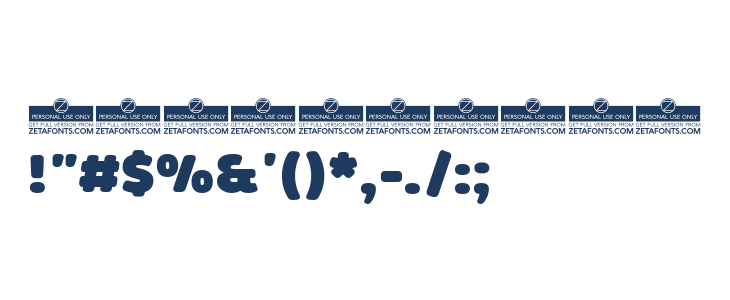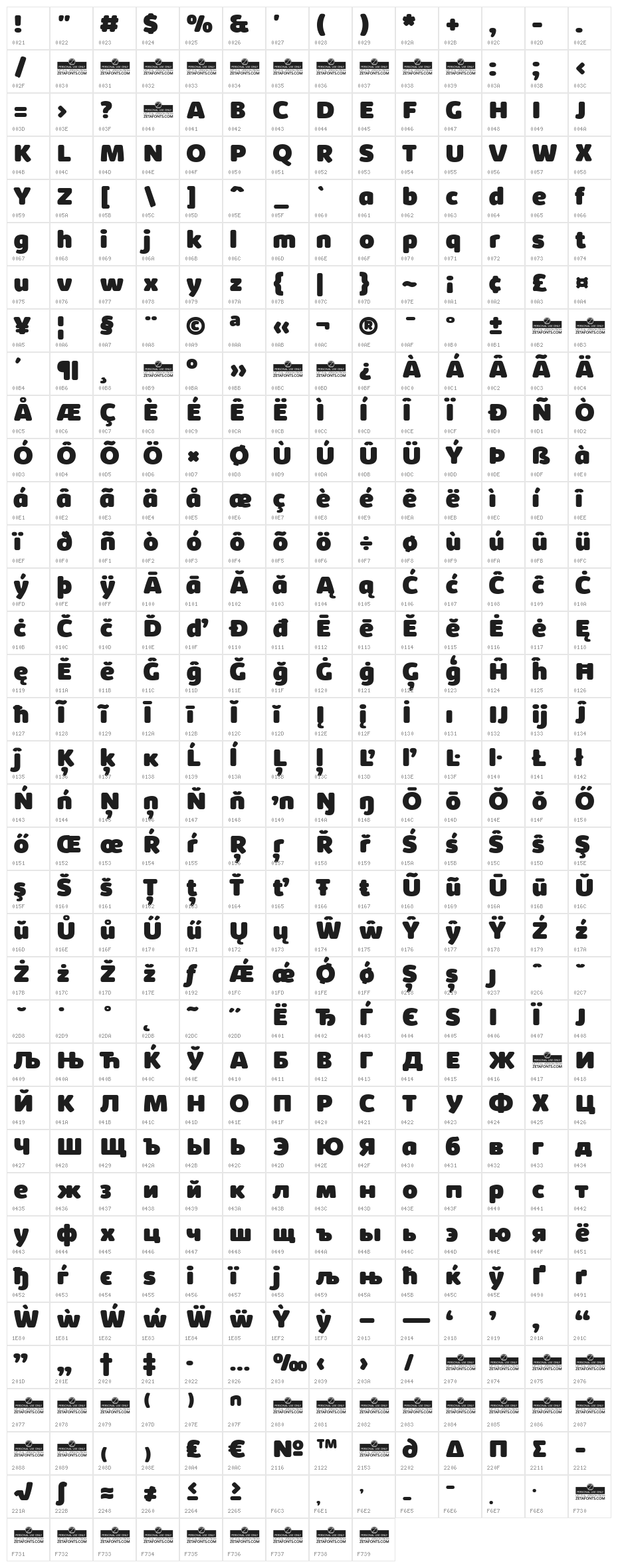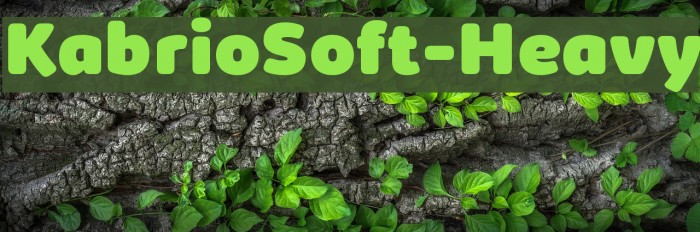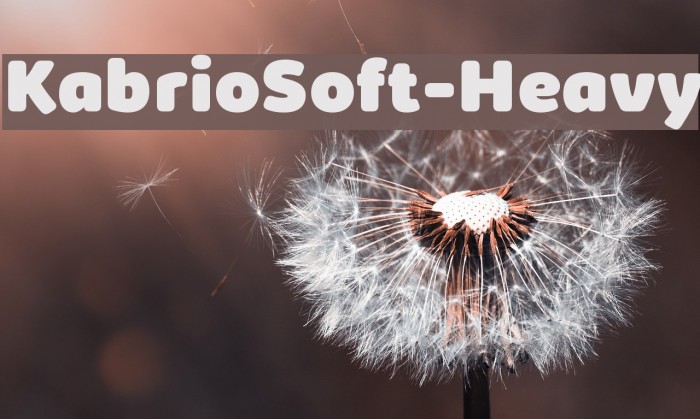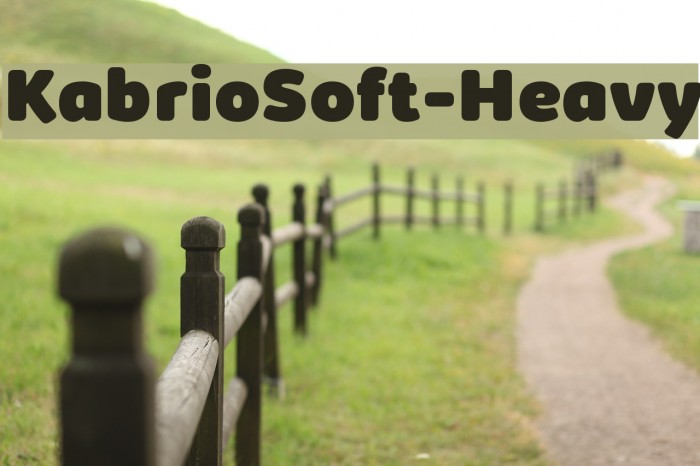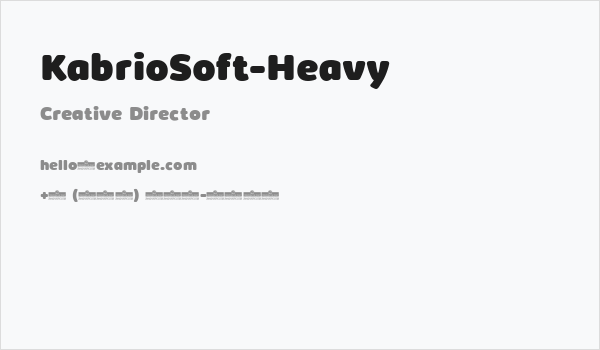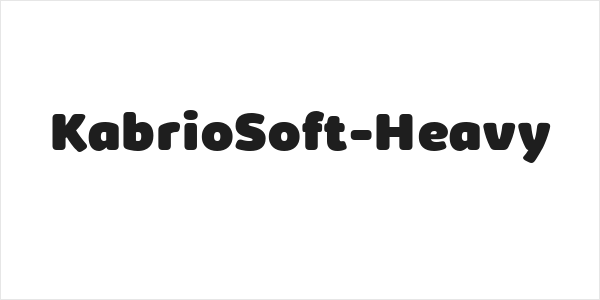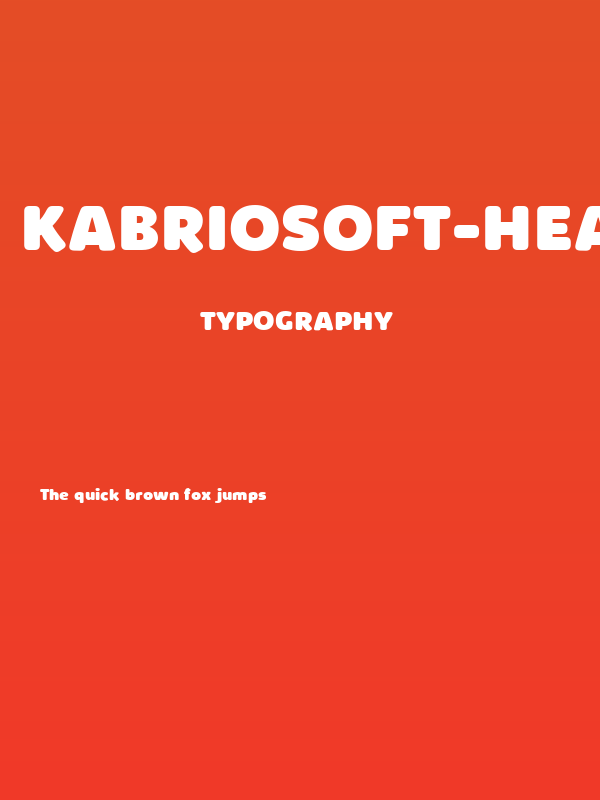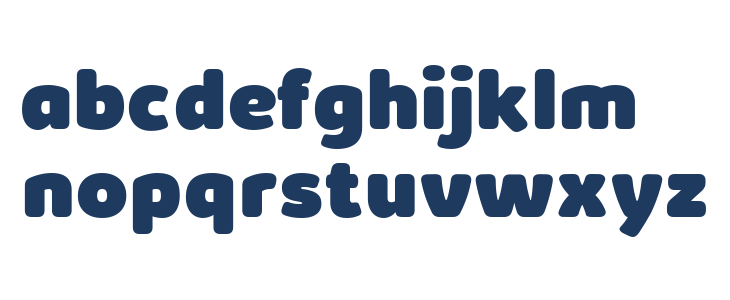
KabrioSoft-Heavy Font
KabrioSoft-Heavy Description
This font features a bold and rounded style with a playful and friendly appearance. The characters are thick and have a uniform stroke width, giving them a strong presence on the page. The rounded edges soften the overall look, making it approachable and suitable for a variety of uses. The uppercase and lowercase letters maintain a consistent style, with the lowercase letters slightly smaller but still retaining the boldness of the uppercase. The numerals and special characters follow the same design principles, ensuring a cohesive look across all text elements.
| Proposed Projects | Ideal for children's books, playful branding, posters, and social media graphics. |